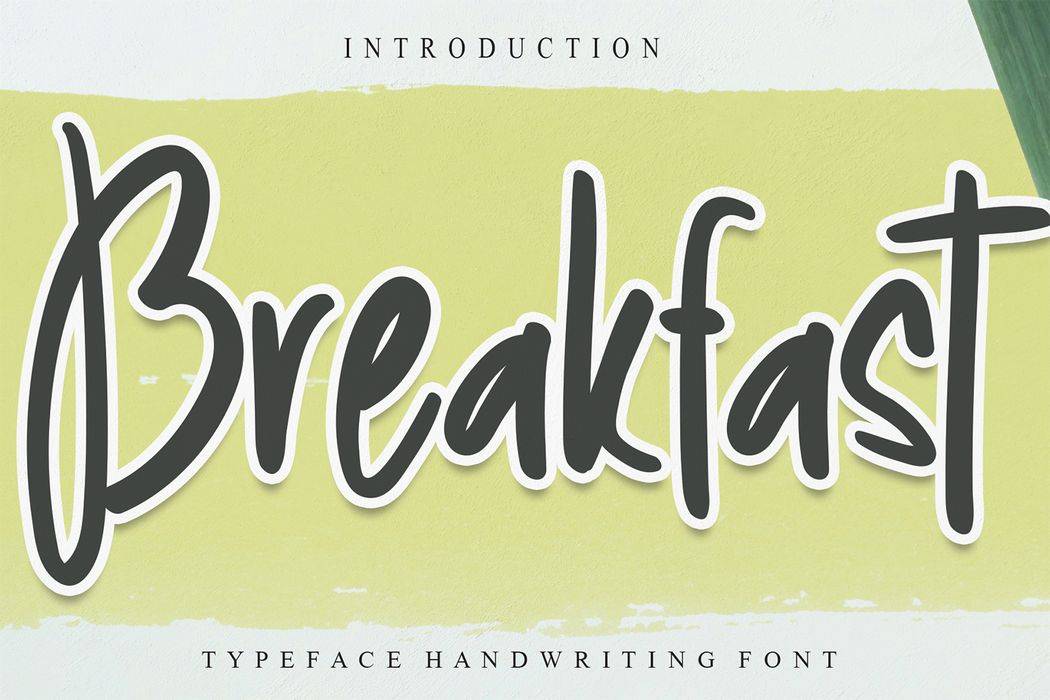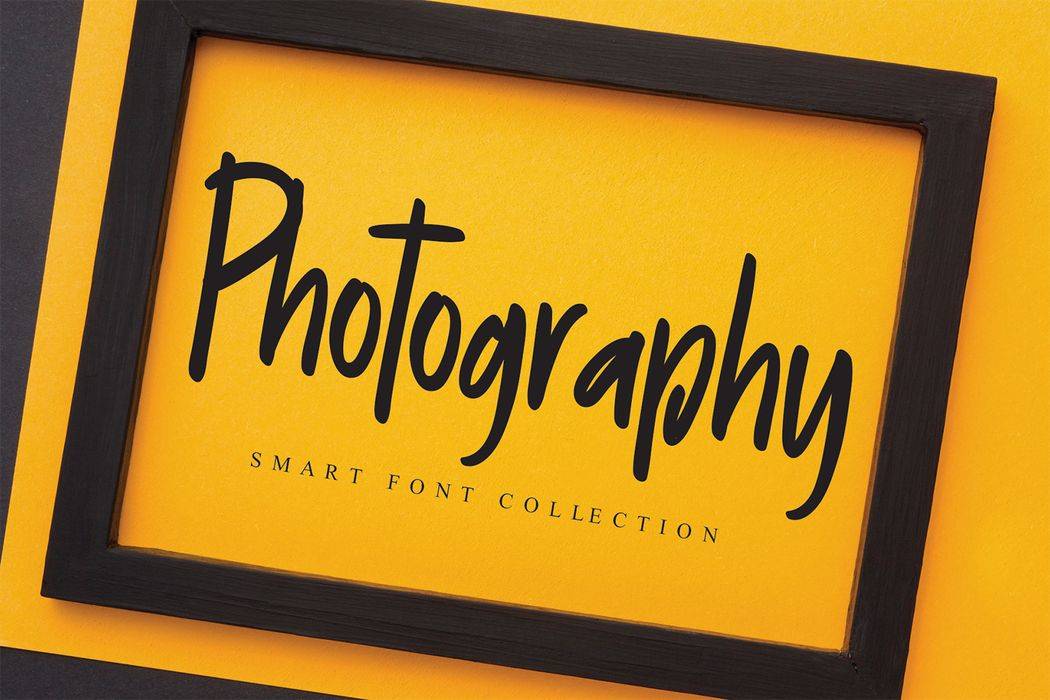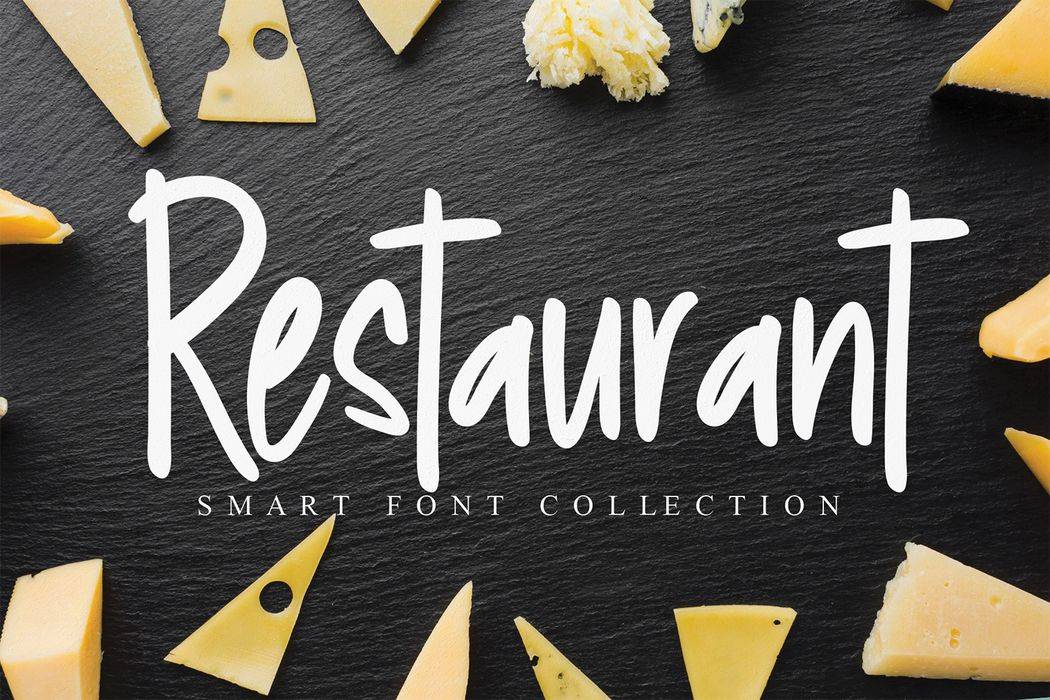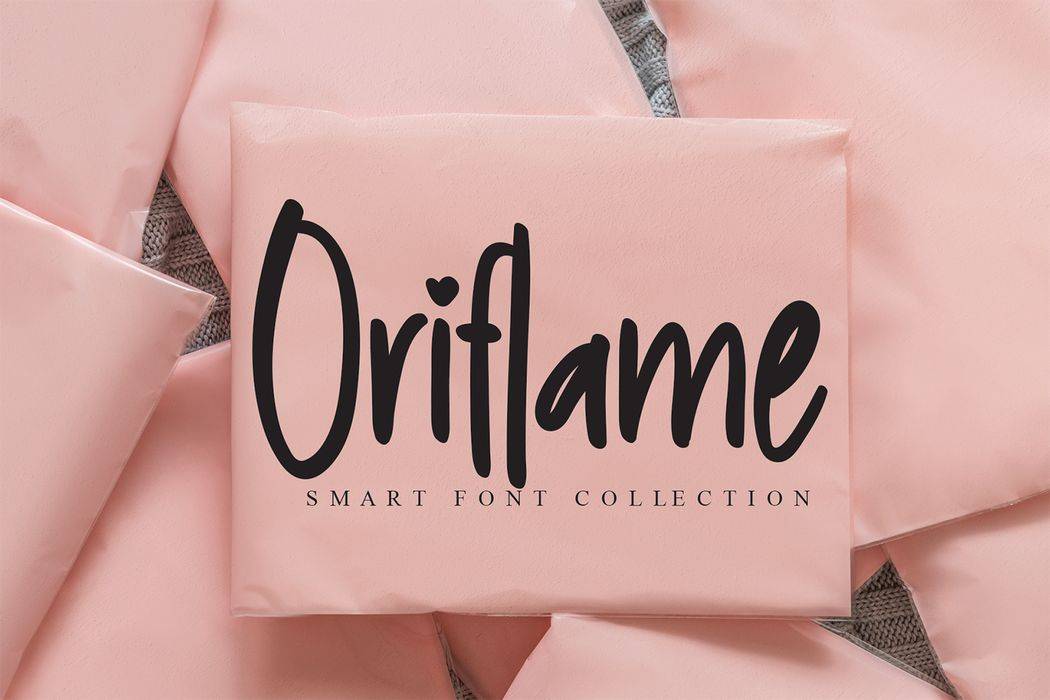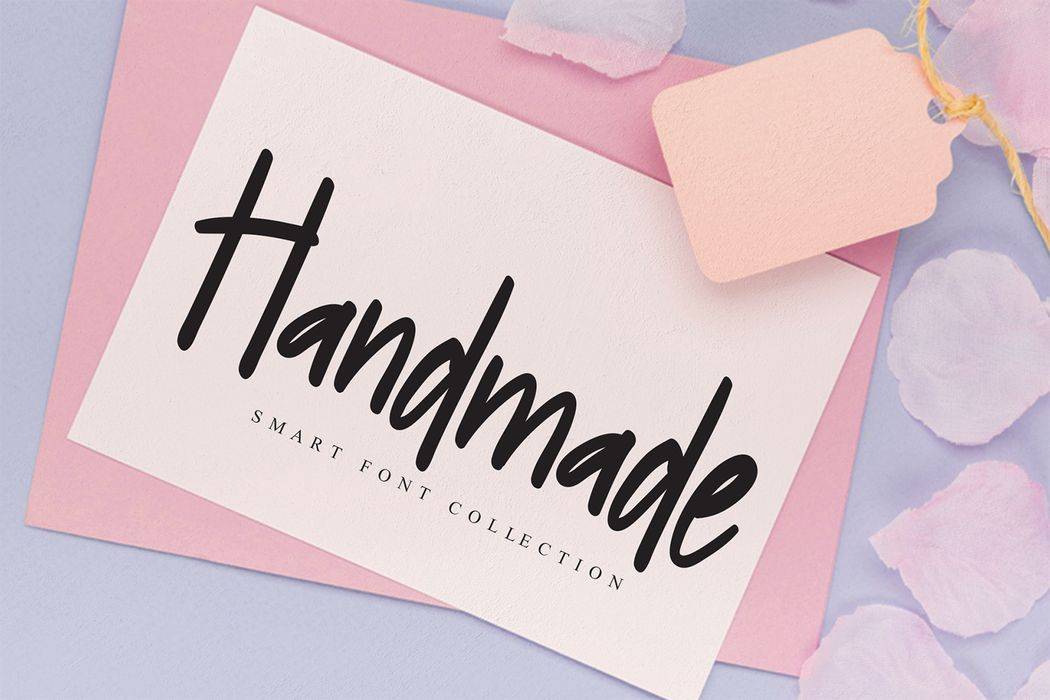
Breakfast Font is a playful, narrow handwritten typeface with an energetic and casual feel. Its tall, slender letterforms and uneven strokes give it a lively, approachable character that works great for informal branding, creative projects, and fun headlines. This font adds a personal touch and dynamic vibe, making it ideal for packaging, social media, and lifestyle-oriented designs.
Breakfast Font
About Breakfast Font